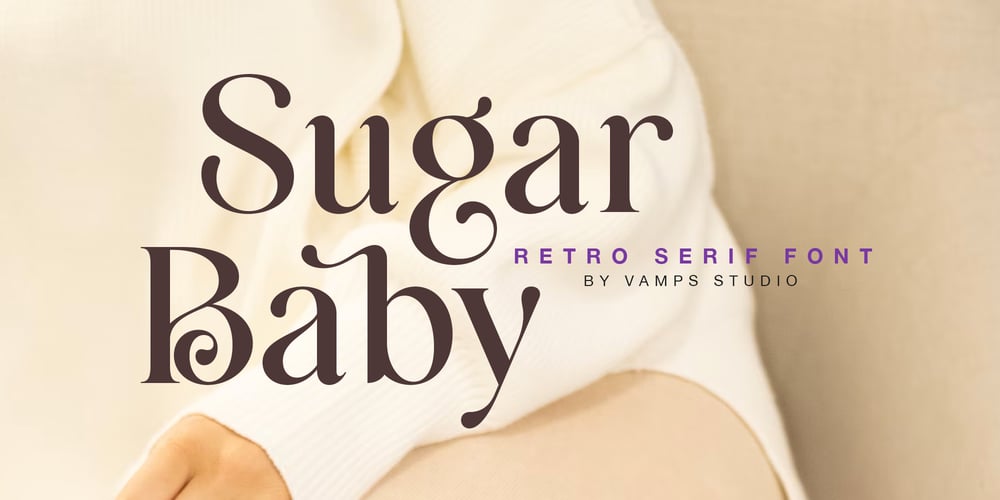
Sugar Baby Font Family was designed by Irfan syah and published by Vampstudio. Sugar Baby contains 1 styles and family package options. Sugar Baby is a modern elegant retro serif font. This font looks very simple, clean, and elegant. Specially designed by skilled hands makes this font is the perfect fit for all your big projects.Sugar Baby is perfect for branding projects, logo, wedding designs, social media posts, advertisements, product packaging, product designs, label, photography, watermark, invitation, stationery and any projects that need stylish and elegant taste.